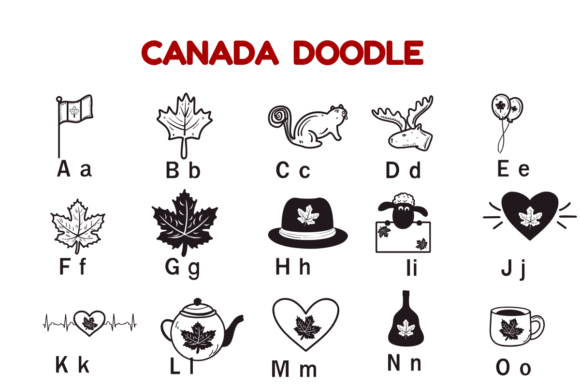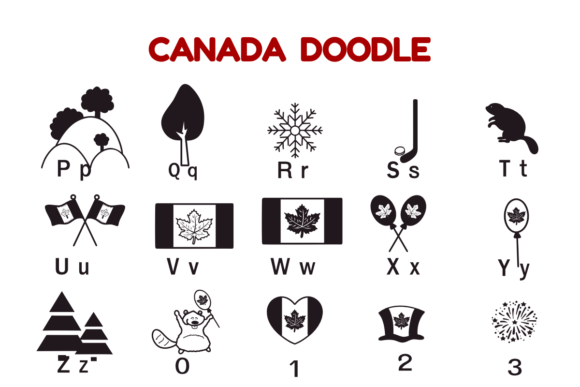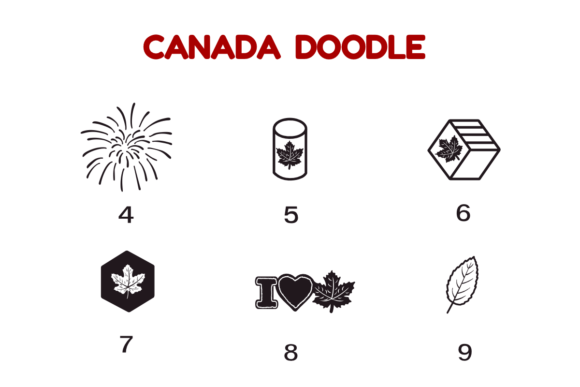
Canada Doodle Font
Canada Doodle is a fancy font filled with Canadian symbols like maple leaves. Each letter is designed with a unique Canadian touch, making it perfect for fun and patriotic projects.